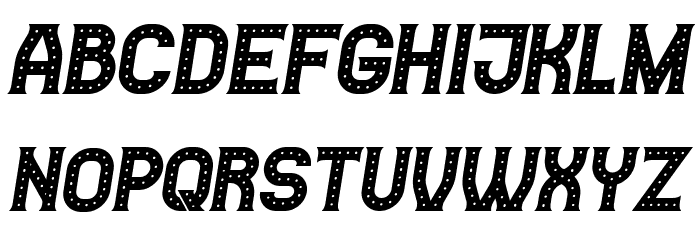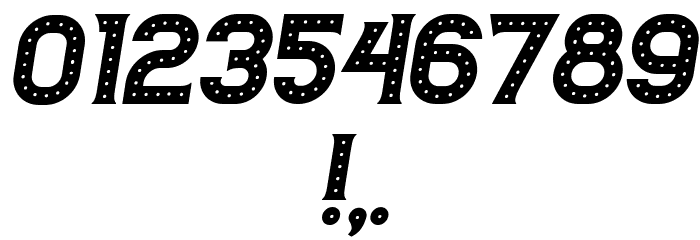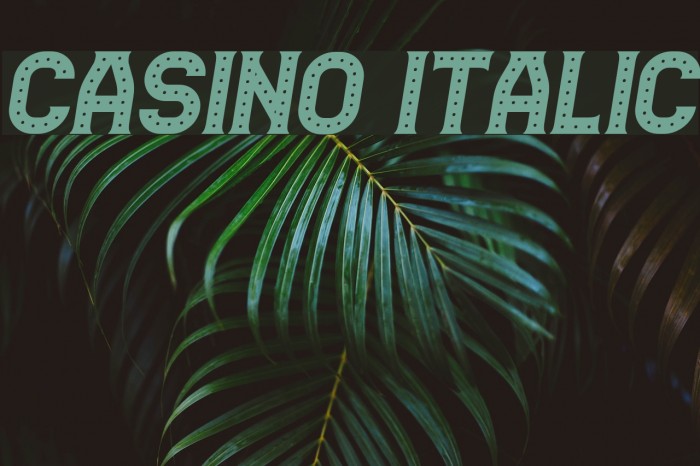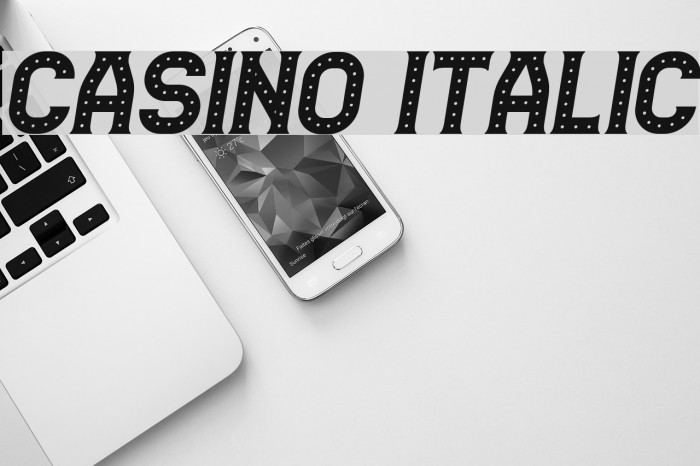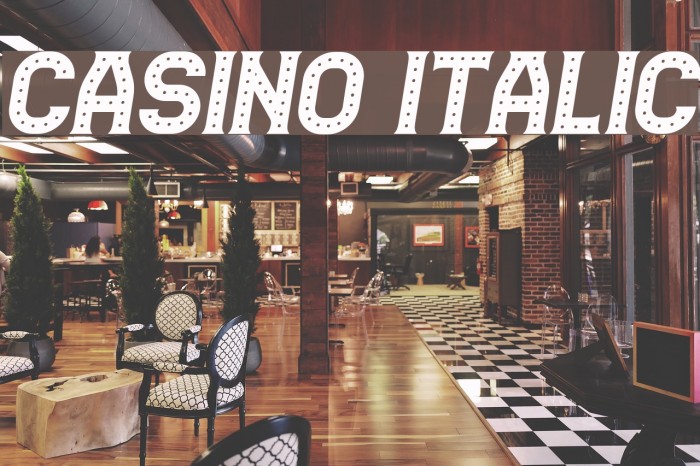
Casino Italic Font
This font features a bold and decorative style with a unique dotted pattern inside each character, reminiscent of classic casino signage. The letters are italicized, adding a dynamic and playful touch. The uppercase and lowercase letters maintain a consistent design, with rounded edges and a slight slant, enhancing the overall aesthetic. The numbers and special characters follow the same decorative theme, making them stand out. This font is perfect for projects that require a fun and eye-catching look, such as event posters, themed invitations, or branding for entertainment venues.
A bold, decorative italic font with a dotted pattern, ideal for playful and eye-catching designs.
- Proposed Projects: Event posters, themed invitations, casino-themed branding, entertainment venue signage.